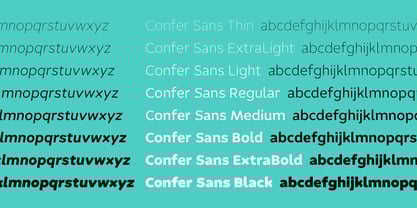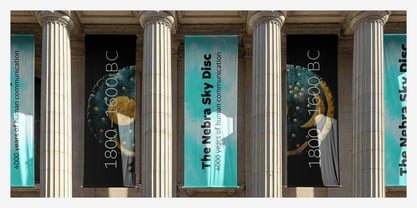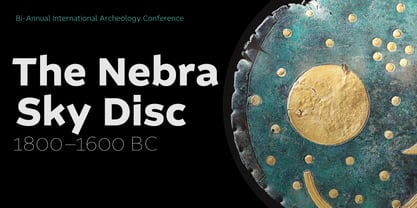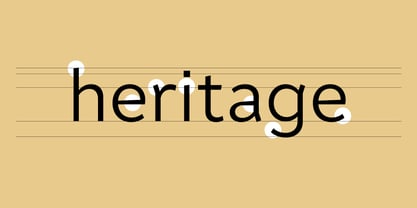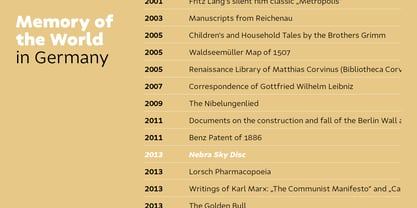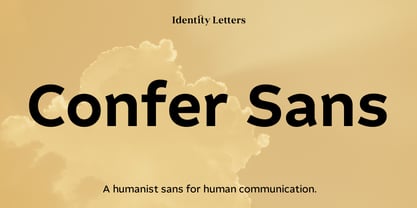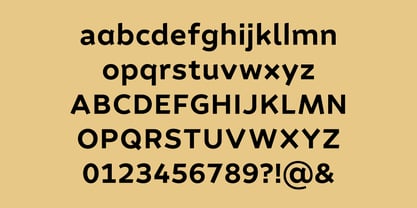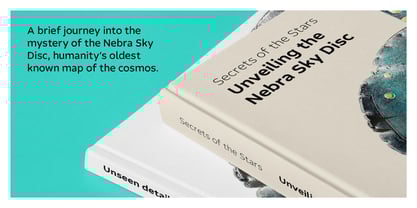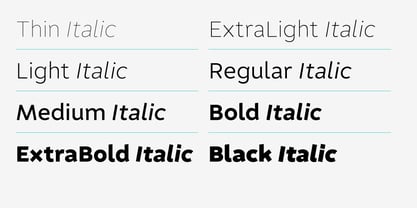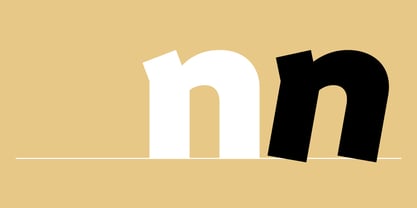
Confer Sans
by Identity Letters
The Confer Sans Font Family was designed by Moritz Kleinsorge and published by Identity Letters. Confer Sans contains 16 styles and family package options. More about this family
Confer Sans is Identity Letters’ answer to the predicament of the “perfect” sans-serif. It maintains the degree of digital perfection expected from a contemporary design while also looking at the human aspect of writing—celebrating the joy of the angular stroke ending. A humanist sans in the best sense: Sophisticated enough for professional, on-brand communication. Informal enough to reach people who refuse a cold neogrotesk. At 16 styles (8 weights plus italics) and ~700 glyphs, Confer Sans is ready for cutting-edge typesetting. This font family wants to be used in culture, education, packaging, branding, advertising—and ultimately, wherever humans are interconnected through communication.
Designers: Moritz Kleinsorge
Foundry: Identity Letters
Identity Letters is a boutique type foundry based in Germany, close to the Dutch border—an ideal place for a straightforward type business. It’s fueled by the cosmopolitan spirit of the Rhine-Ruhr metropolitan region, close to the cities of Cologne and Düsseldorf, and informed by a rich cultural history whose traces are ubiquitous in the area. Here we work hard to provide businesses and creatives anywhere in the world with powerful, precisely crafted fonts that get across the right message. Our credo: Typography is not just words. It’s identity. That’s where our mission starts: we create the fonts that suit your type.